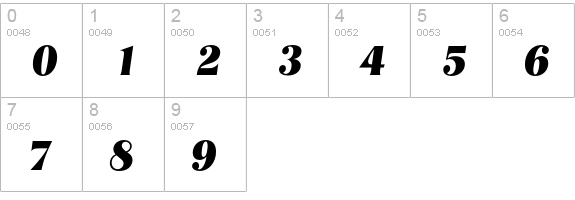
Nashville-BoldIta Font Details
Nashville-BoldIta is a modern and stylish font that exudes confidence and sophistication. Its bold and italic design adds a touch of elegance to any project, making it perfect for headlines, titles, and branding materials. The sharp angles and sleek curves of Nashville-BoldIta create a dynamic and eye-catching look that is sure to capture the attention of your audience. What sets Nashville-BoldIta apart is not only its striking appearance but also the fact that it is available for free! You can easily download this versatile font at FontsMarket.com and start using it in your designs right away. Whether you're working on a website, a poster, a logo, or any other creative project, Nashville-BoldIta is a fantastic choice that will help your content stand out and make a lasting impression. Add a touch of sophistication and flair to your designs with Nashville-BoldIta today!